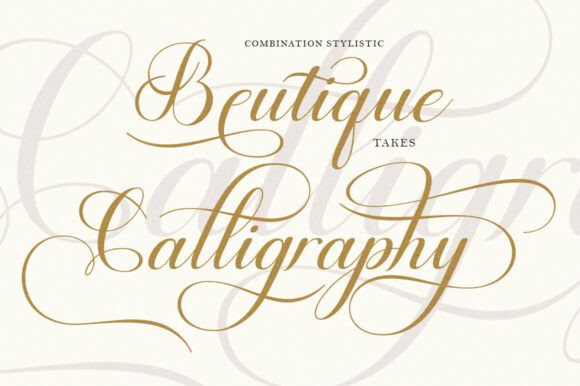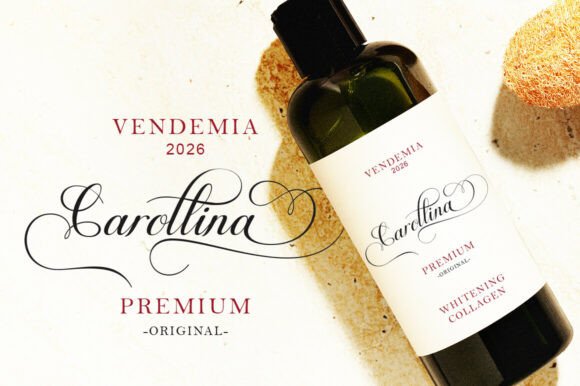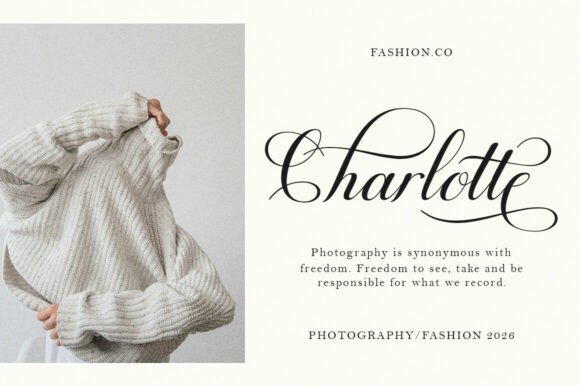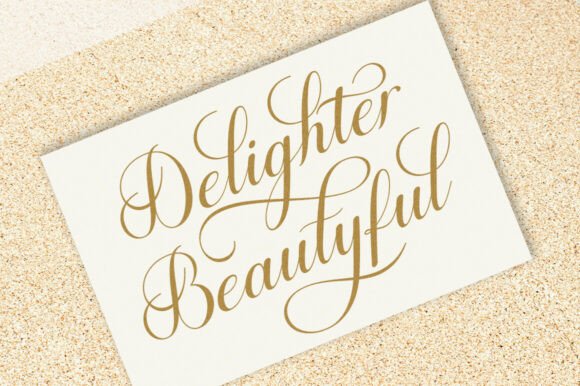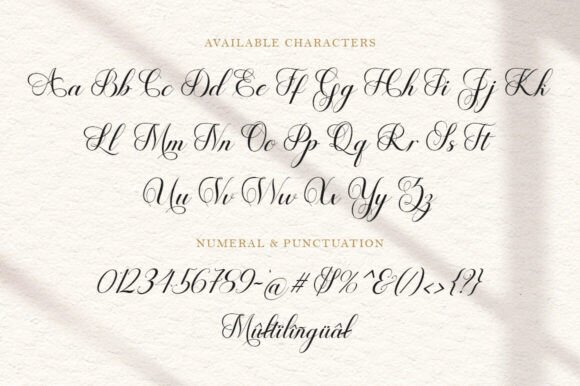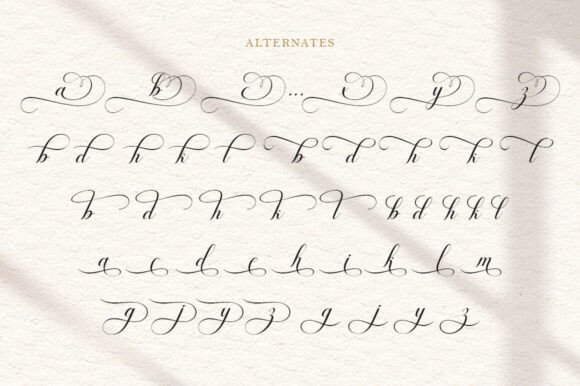
Discover the Enchanting Calligraphy Font: Elevate Your Designs with Elegance and Sophistication
Are you searching for a font that embodies the perfect blend of classic charm and modern refinement? Look no further than the Enchanting Calligraphy font. This exquisite script font seamlessly merges the timeless beauty of decorative copperplate calligraphy with a contemporary twist, making it an ideal choice for designers and crafters seeking to infuse their projects with luxury and sophistication.
Unparalleled Elegance and Versatility
The Enchanting Calligraphy font is a masterpiece of typographic design, boasting a smooth, clean, and feminine aesthetic that exudes sensuality and refinement. Its elegant letterforms are meticulously crafted to ensure effortless readability, while the beautiful connections between letters add a touch of whimsy and flair. This versatile font is perfect for a wide range of applications, including:
- Wedding invitations and ceremony programs
- Branding and logo design
- Restaurant menus and food packaging
- Fashion and beauty branding, including packaging and advertising materials
- Greeting cards and stationery
- Book covers and magazine layouts
Key Features of the Enchanting Calligraphy Font
What sets the Enchanting Calligraphy font apart from other script fonts is its impressive array of features, including:
- PUA Encoding: For effortless access to all glyphs, swashes, and alternate characters, allowing for seamless customization.
- Stylistic Alternates: A range of alternate characters and ligatures to add visual interest and personality to your designs.
- Beautiful Letter Connections: Elegant connections between letters create a sense of fluidity and movement.
- Effortless Readability: Smooth, clean lines ensure that your text is easy to read, even at smaller sizes.
Unlock Endless Creative Possibilities
With the Enchanting Calligraphy font, the creative possibilities are endless. Whether you’re a designer, crafter, or DIY enthusiast, this font offers the perfect combination of style, sophistication, and versatility. Use it to:
- Create stunning wedding invitations and ceremony programs that set the tone for a memorable occasion.
- Elevate your branding and packaging designs with a touch of luxury and refinement.
- Design eye-catching restaurant menus and food packaging that will leave a lasting impression on customers.
- Craft beautiful greeting cards and stationery that showcase your personal style.
Why Choose the Enchanting Calligraphy Font?
In a world where typography plays a crucial role in visual communication, the Enchanting Calligraphy font stands out as a shining example of elegance and sophistication. By choosing this font, you’ll gain access to a world of creative possibilities, allowing you to:
- Enhance your designs with a touch of luxury and refinement.
- Stand out in a crowded market with unique and eye-catching typography.
- Streamline your design process with a versatile font that can be used across multiple applications.
In conclusion, the Enchanting Calligraphy font is an exquisite script font that offers the perfect blend of classic charm and modern sophistication. With its elegant letterforms, beautiful connections, and impressive array of features, this font is sure to become a staple in your design arsenal. So why wait? Discover the enchanting world of calligraphy typography today and elevate your designs to new heights of elegance and refinement.